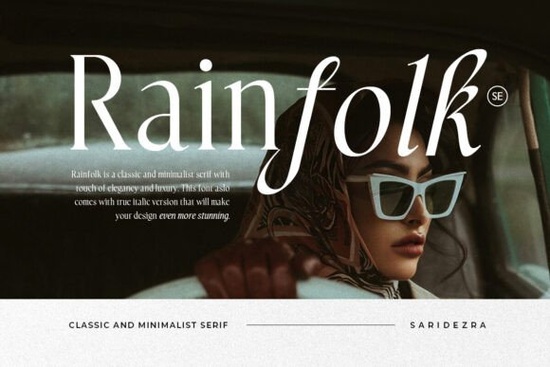
If you're looking for a serif font that blends classic structure with understated elegance, Rainfolk Font might be exactly what your next project needs. Designed with clean lines and subtle contrast, it carries a sense of quiet luxury perfect for wedding stationery, boutique branding, or any design where sophistication matters more than flash. What sets Rainfolk apart is its inclusion of a true italic version, not just a slanted copy of the regular style. This gives your typography real depth and flexibility.
Why choose a true italic over a fake one?
Many fonts labeled “italic” are actually just algorithmically slanted versions of the upright style. Rainfolk’s italic was drawn by hand to complement the roman form, with adjusted letterforms, refined curves, and intentional spacing. That attention to detail makes a noticeable difference in professional layouts especially in print work like invitations or packaging, where every glyph counts.
For small business owners creating their own logos or crafters designing printable templates, this distinction matters. A true italic lets you add emphasis or variety without breaking visual harmony. Whether you’re typesetting a quote on a greeting card or building a cohesive brand identity, Rainfolk holds up beautifully at both large and small sizes.
What kinds of projects work best with Rainfolk?
Rainfolk shines in contexts that call for timeless appeal rather than trendiness. Think:
- Wedding invitations and save-the-dates
- Luxury product labels (candles, skincare, artisan foods)
- Editorial layouts for boutique magazines or lookbooks
- Elegant social media graphics for lifestyle brands
- Custom monograms or engraved-style designs
Because it supports multiple languages including Western, Central, and Eastern European characters it’s also practical for international clients or multilingual projects.
How does Rainfolk compare to other elegant serifs?
If you’ve browsed Creative Fabrica’s serif collection, you may have come across options like Magic Seventie, which leans into 1970s-inspired flair, or Mistory, known for its high-contrast drama and sharp terminals. Rainfolk takes a quieter approach: less ornamental, more restrained. It doesn’t shout but it commands attention through balance and proportion.
Another alternative worth noting is Gidora, which offers a modern geometric take on the serif form. While Gidora feels crisp and contemporary, Rainfolk feels like it’s been around for decades in the best way. It’s the kind of typeface that looks equally at home on a vintage apothecary label or a minimalist coffee shop menu.
Is Rainfolk right for your creative workflow?
That said, Rainfolk isn’t ideal for body text in long-form digital content. Its display-oriented proportions work best at larger sizes. But for headlines, short quotes, logos, or accent typography? It’s reliable, refined, and ready to use.
- Pair thoughtfully: Combine with a neutral sans-serif (like Montserrat or Lato) for contrast, or let Rainfolk stand alone for maximum impact.
- Use the italic intentionally: Don’t just swap styles randomly reserve it for emphasis, captions, or secondary information to create hierarchy.
If you’re building a brand that values subtlety over spectacle, Rainfolk offers a grounded, graceful foundation one that won’t feel dated next season.